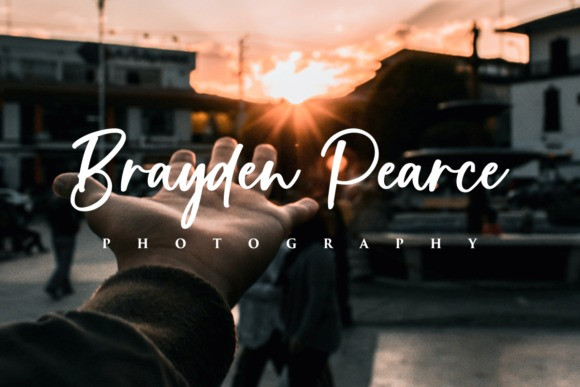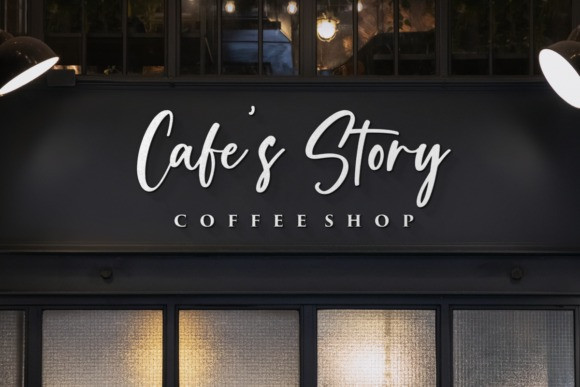
Supersonic Script Font
Supersonic is a natural handwritten font. This font is made in a modern style with a very beautiful beginning and ending. It is both elegant, casual, and suitable for your various design needs. It’s perfect for logo, branding, title, social media posts, advertisements, product packaging, product designs, label, photography, watermark, special event, magazine, web designs, etc.